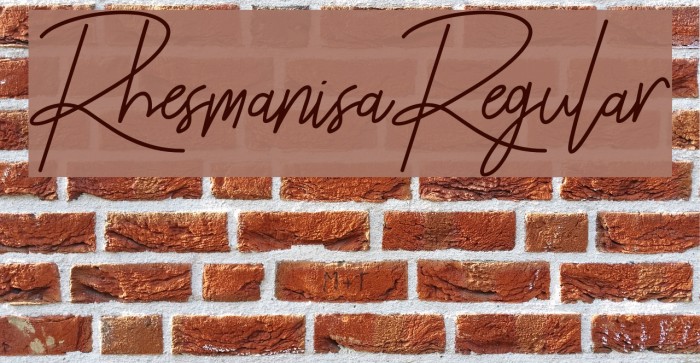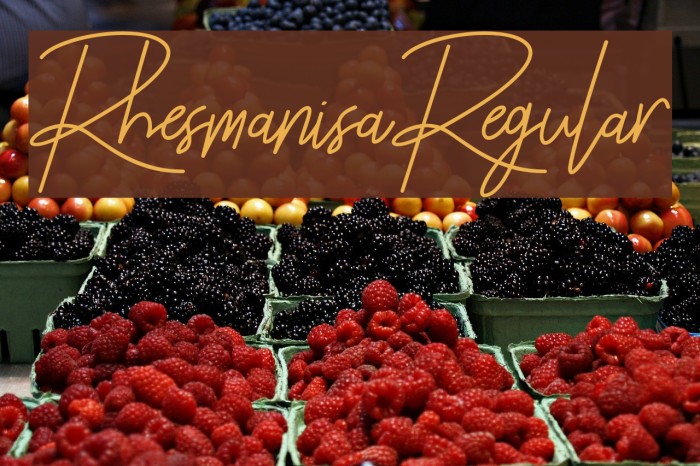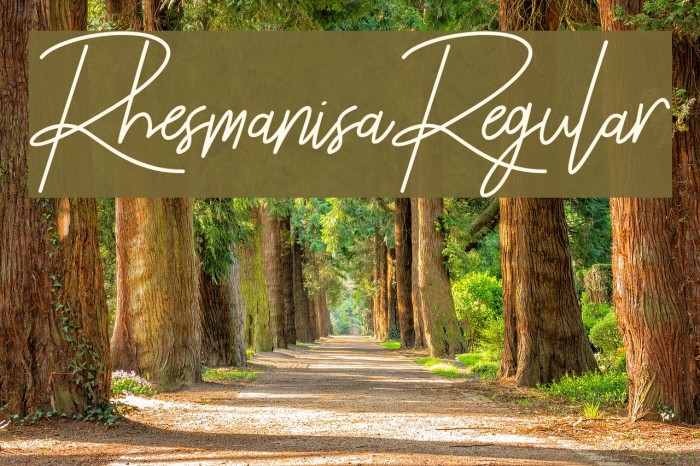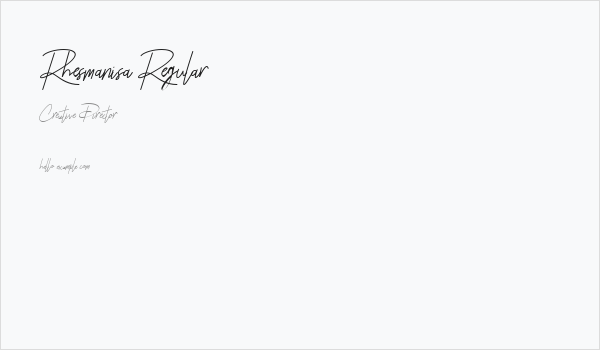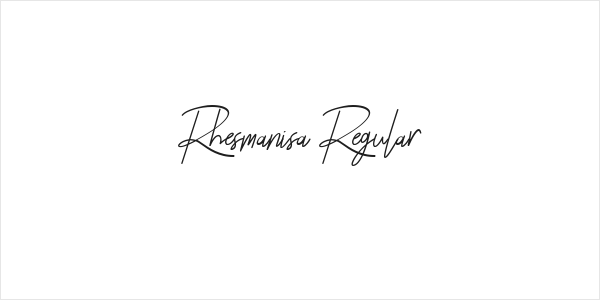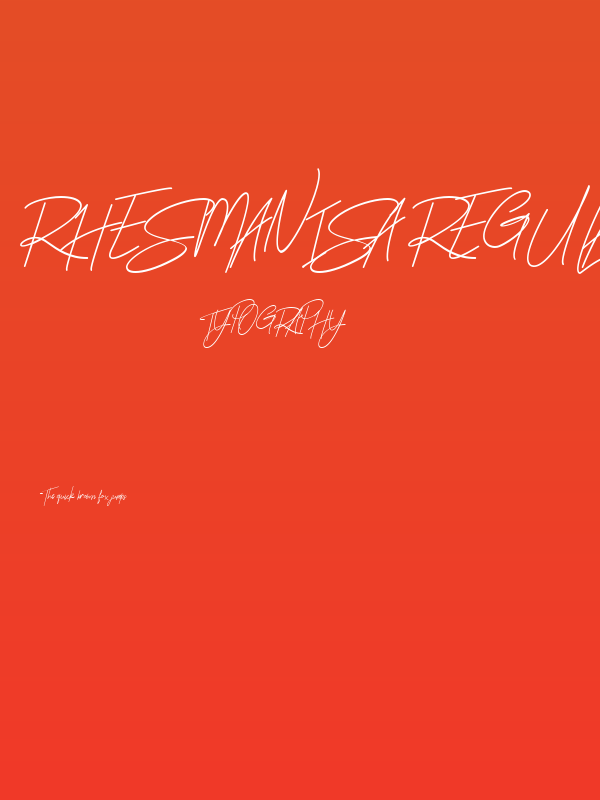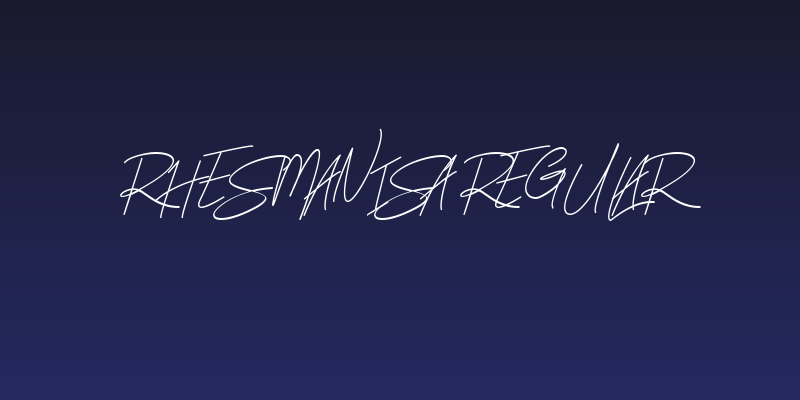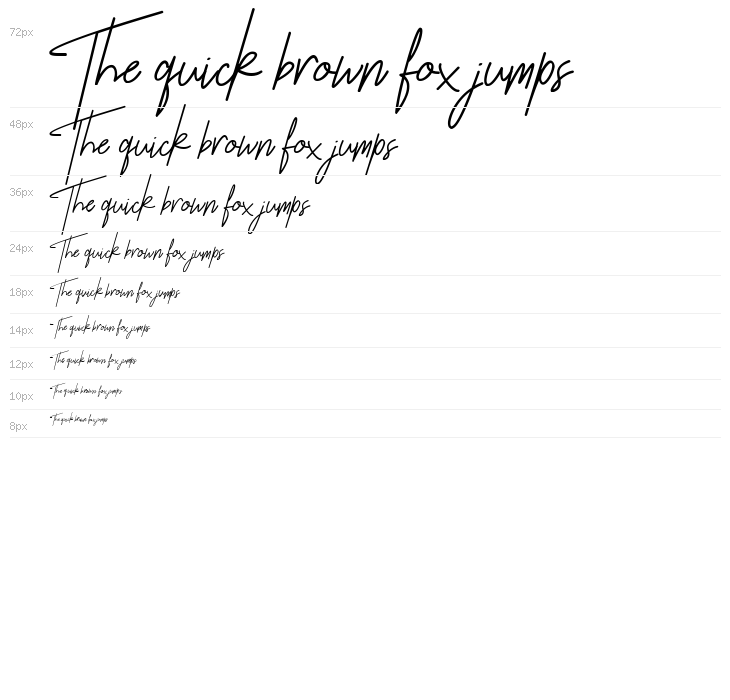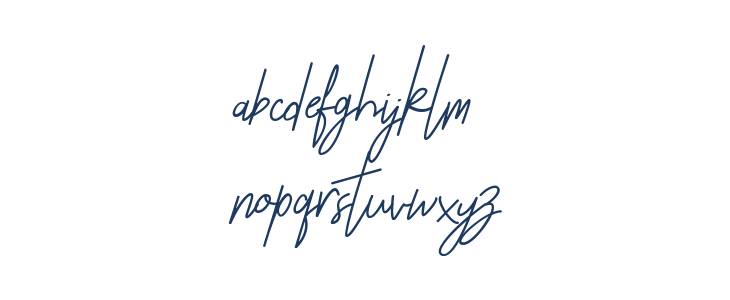
Rhesmanisa-Regular Font
Rhesmanisa-Regular Description
This font features a handwritten, cursive style with a fluid and elegant appearance. The letters are connected, creating a seamless flow that mimics natural handwriting. The strokes are thin and delicate, adding a sense of sophistication and grace. The uppercase letters are slightly larger and more pronounced, while the lowercase letters maintain a consistent height, enhancing readability. The overall design is airy and light, with a modern touch that makes it suitable for various creative projects. The font's unique character is emphasized by its slanted orientation, giving it a dynamic and lively feel.
| Proposed Projects | Ideal for wedding invitations, personal branding, greeting cards, and elegant logos. |